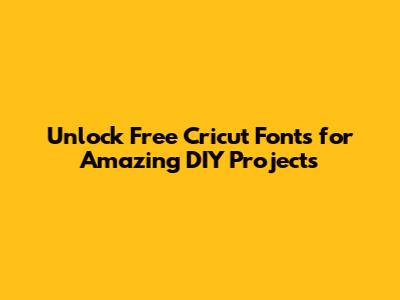
Hey there, fellow crafters! Have you ever found yourself in Cricut Design Space, itching to start a new project but feeling limited by the standard fonts? You know that feeling when you envision the perfect design, but the fonts available just aren't cutting it? Well, guess what, guys? You don't always have to spend a fortune to get those stylish, unique fonts that make your projects pop! We're talking about getting free fonts for Cricut that will elevate your crafting game without costing you a single penny. It's totally possible, super easy, and incredibly rewarding to expand your font library. This article is your go-to guide for discovering, downloading, and using an abundance of amazing free fonts perfect for all your Cricut creations. Whether you're making personalized t-shirts, custom mugs, stunning cards, or intricate home decor, having a diverse collection of fonts at your fingertips is an absolute game-changer. We'll walk you through everything, from where to hunt down the best freebies to how to get them into Design Space seamlessly. So, get ready to unleash your creativity and give your Cricut projects that professional, polished look you've always wanted, all by leveraging the power of free fonts for Cricut.
Crafting with your Cricut machine is already an incredibly satisfying hobby, allowing you to bring so many DIY project ideas to life. However, one of the biggest challenges many new (and even seasoned!) Cricut users face is the perceived limitation of fonts. The truth is, while Cricut Design Space offers a decent selection of fonts, and you can subscribe to Cricut Access for even more, there's a whole universe of beautiful, unique fonts available absolutely free online. These free fonts for Cricut can dramatically transform your projects, adding that special touch that makes them truly stand out. Imagine creating custom decals with a whimsical script, designing intricate layered cards with a rustic handwritten feel, or personalizing gifts with a sleek, modern typeface, all without ever opening your wallet for a font purchase. It's about empowering you to be more creative, more unique, and more resourceful with your crafting. Plus, learning how to source and install these fonts gives you a valuable skill that will serve you well in all your future design endeavors. We're here to demystify the process and show you just how easy and fun it is to continuously refresh your font arsenal. So, let’s dive deep into the wonderful world of free fonts for Cricut and turn your crafting dreams into reality.
Why Free Fonts for Cricut are a Game-Changer for Your Projects
Using free fonts for Cricut isn't just about saving money, though that's a huge plus! It's about unlocking an entire universe of creative possibilities that can truly transform your crafting projects. Think about it: every design starts with an idea, and often, that idea involves text. The right font can convey emotion, set a mood, and even tell a story, making your Cricut creations more impactful and personalized. Imagine designing a baby onesie with a charming, bubbly font, or creating a sophisticated wedding invitation with an elegant, flowing script. These specific touches are often what make handmade items so special, and having a vast library of free fonts for Cricut allows you to achieve that level of detail without breaking the bank. It means you can experiment more, try out different styles, and find that perfect typeface for every single project, from vinyl decals to intricate paper crafts. This freedom to explore ensures your projects always feel fresh, unique, and truly yours, moving beyond the standard options everyone else uses.
Beyond just aesthetics, embracing free fonts for Cricut empowers you to tackle a wider variety of DIY projects. Certain fonts are better suited for specific applications. For example, some fonts are excellent for cutting intricate details on vinyl, while others are perfect for large, bold statements on a t-shirt. By expanding your font collection with free options, you gain versatility. You might discover handwritten fonts that are ideal for creating personalized greeting cards, or find sturdy, sans-serif fonts that cut cleanly for precise labeling projects. This access to diverse styles encourages you to step out of your comfort zone and try new design approaches. Moreover, many independent font designers create incredible work and offer it for free (often for personal use), giving you access to unique aesthetics that aren't mass-produced. This not only makes your projects stand out but also connects you to a wider community of artists. So, instead of feeling limited, you'll feel inspired, knowing that a whole world of free fonts for Cricut is just a few clicks away, ready to bring your most ambitious crafting ideas to life and make every item a masterpiece.